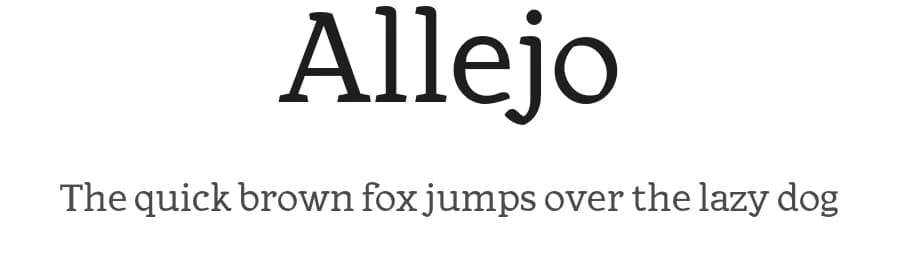
About Allejo Font
Allejo is a serif font designed by Thiago Matsunaga. It includes 318 glyphs, a regular weight, OTF (CFF) format, and 213 languages. Allejo is free to download; check the license details on this page before commercial use. Serif fonts like Allejo work best for body text, editorial layouts, book covers, and classic branding.
Allejo ships with 4 OpenType features you can switch on in apps that support them (Illustrator, InDesign, Affinity, Figma, CSS font-feature-settings).
- Small capitals
Allejo supports 213 languages.
Allejo Font is a versatile serif font that works for both headings and body text. Pair it with a contrasting sans-serif or slab serif font to add visual interest and a clear distinction between titles and body copy.
Allejo Font
Allejo Font is a serif typeface by Thiago Matsunaga, ideal for logos, invitations, branding, and creative projects.